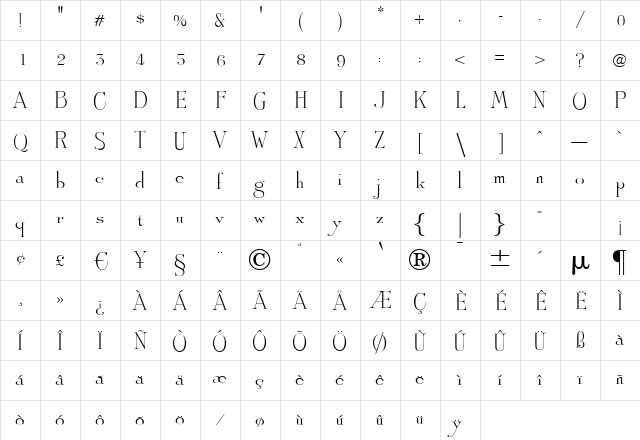
A820-Roman Regular
Design Context for A820-Roman Typeface
A820-Roman takes a measured approach to typography — its balanced proportions and neutral character make it a reliable workhorse for both digital and print work.